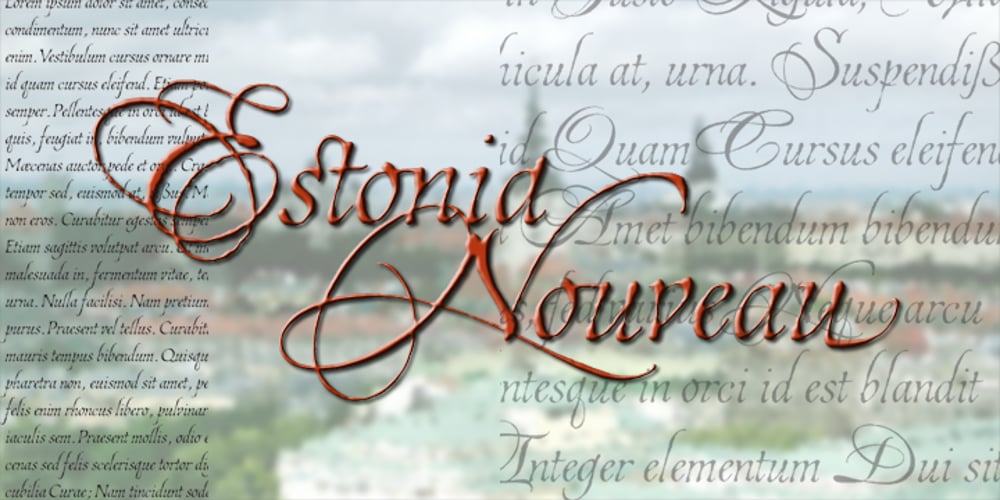
Estonia Nouveau Pro Font Family was designed by Rob Leuschke and published by TypeSETit. Estonia Nouveau Pro contains 1 styles and family package options. Estonia Nouveau is based on the calligraphic style found in the East European country of Estonia. The traditional lowercase forms are combined with the more non-traditional script uppercase alternates to give a truly up-to-date, yet traditional look.